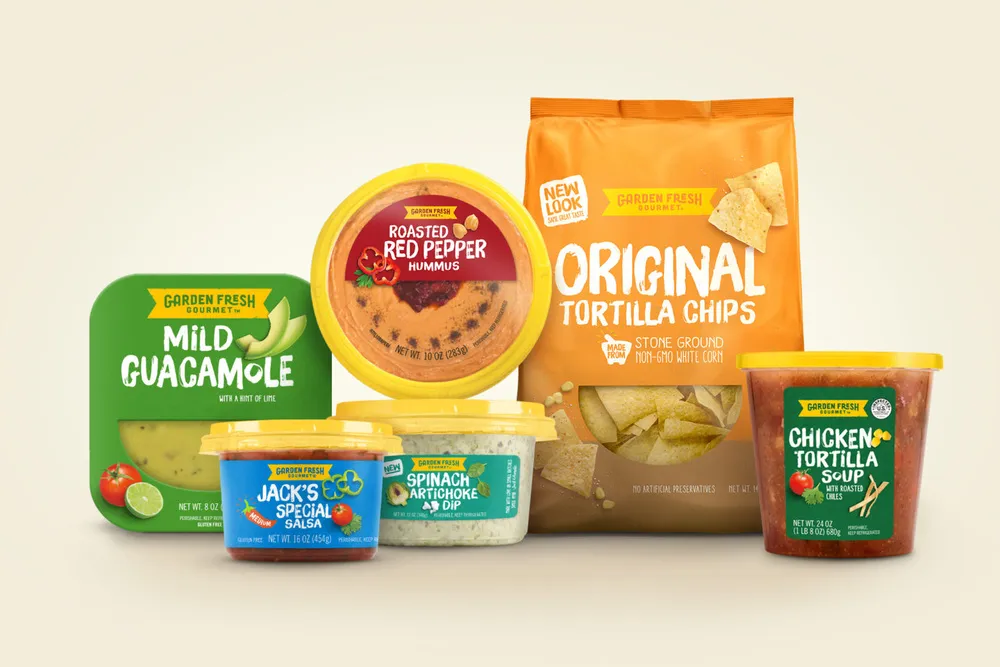
Fonts in Use: Brush Up
Garden Fresh Gourmet
Design: Chase Design Group
THE CHALLENGE
Chase was asked to create a new visual identity and comprehensive packaging redesign for Campbell’s C-Fresh brand, Garden Fresh Gourmet. Our ultimate goal was to convey the fresh, high-quality ingredients of their products and to improve shoppability.
THE SOLUTION
The package redesign started with Garden Fresh Gourmet’s salsa line—the #1 refrigerated salsa brand in the US. Their old look was dated, inconsistent, and hard to shop. The new design retains and builds on the brand yellow with a new logo and eye-catching colored lids. Strong colors and hand-drawn type are integrated with ingredient photography and natural textures, elevating appetite appeal and communicating, “crafted gourmet taste, made fresh”.